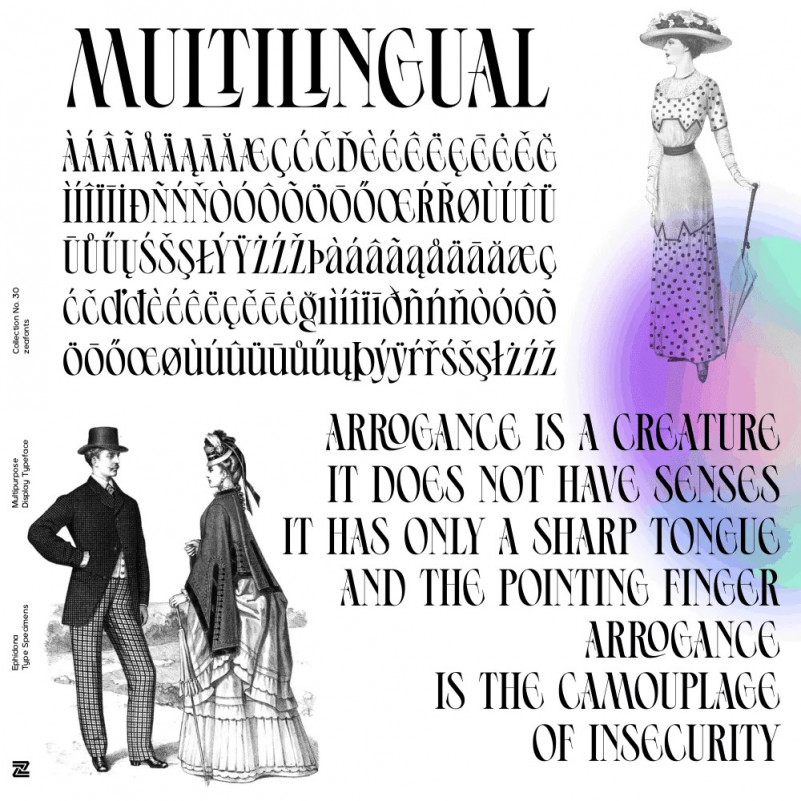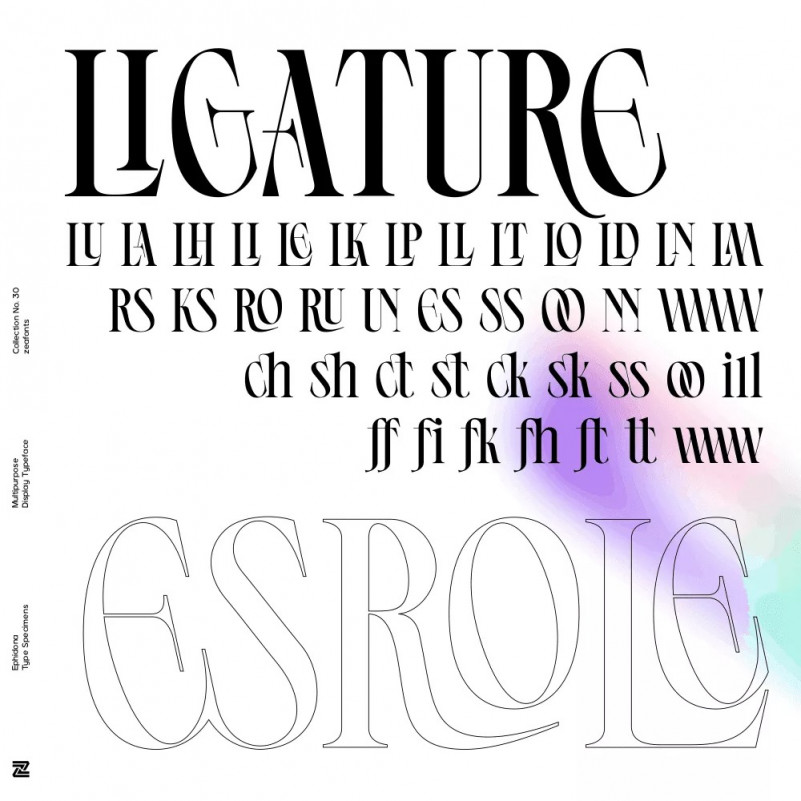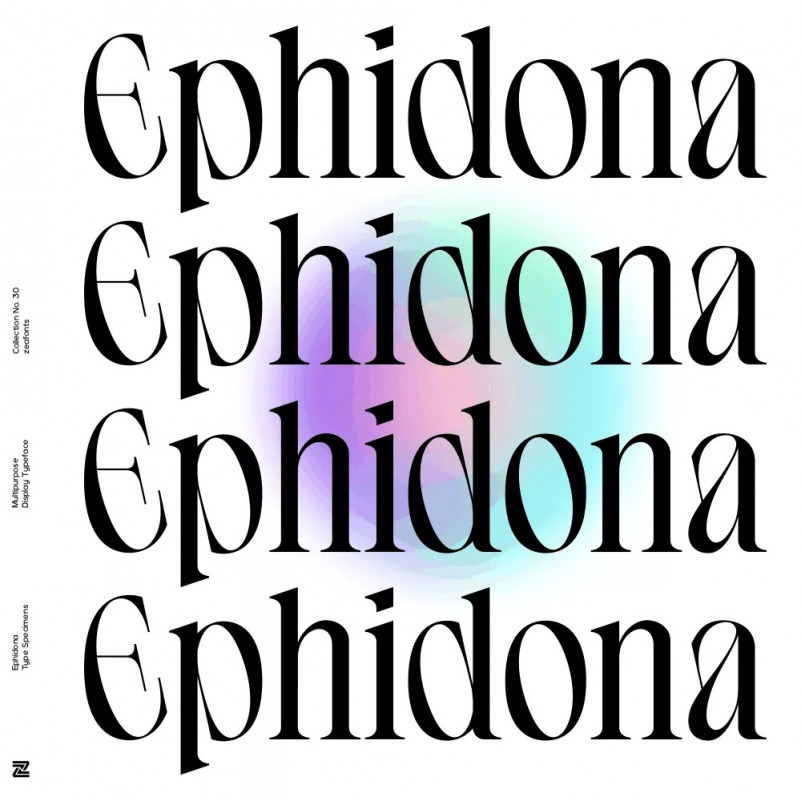
Ephidona Font
Grab our new font Ephidona Serif Font is a high contrast serif typeface that features a mixed modern-classic design. Supporting Latin languages, numbers, stylistic altnerates, punctuation, and alternative ligatures, you can create unique logotypes, element layouts, magazine titles, and much more.